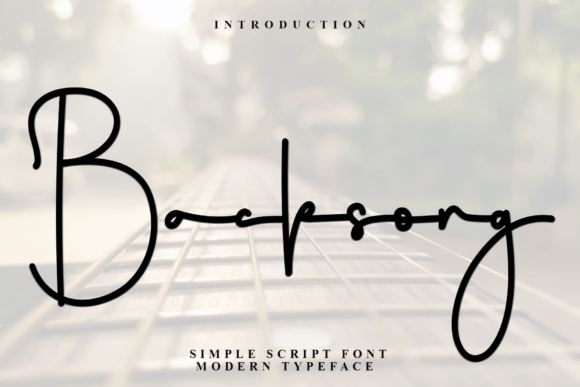
Introducing Backsong Font: The Elegant and Timeless Handwritten Font
Are you looking for a font that can add a touch of elegance and sophistication to your designs? Look no further than Backsong Font, a beautiful and flowing handwritten font that is perfect for a wide range of projects. With its incredibly distinct and timeless style, Backsong Font is sure to fall in love with anyone who lays eyes on it.
What is Backsong Font?
Backsong Font is a type of handwritten font that is characterized by its elegant and flowing script. It is designed to mimic the look and feel of traditional handwriting, with each letter and word carefully crafted to create a sense of movement and fluidity. The font is perfect for anyone who wants to add a personal touch to their designs, whether it’s for a wedding invitation, a logo, or a website.
Features of Backsong Font
So, what makes Backsong Font so special? Here are just a few of its key features:
- Elegant and sophisticated design: Backsong Font is designed to be elegant and sophisticated, making it perfect for high-end designs and projects.
- Flowing script: The font features a flowing script that is designed to mimic traditional handwriting.
- Timeless style: Backsong Font has a timeless style that will never go out of fashion.
- Distinctive look: The font has a distinctive look that will set your designs apart from the rest.
- Easy to read: Despite its elegant design, Backsong Font is easy to read and understand.
What Can I Use Backsong Font For?
Backsong Font is a versatile font that can be used for a wide range of projects, including:
- Wedding invitations: The font’s elegant design makes it perfect for wedding invitations and other formal events.
- Logos and branding: Backsong Font can be used to create unique and memorable logos and branding materials.
- Websites and blogs: The font can be used to add a touch of elegance to websites and blogs.
- Social media graphics: Backsong Font can be used to create eye-catching social media graphics.
- Print materials: The font can be used for a wide range of print materials, including brochures, flyers, and posters.
Why Choose Backsong Font?
So, why should you choose Backsong Font for your next project? Here are just a few reasons:
- Unique and distinctive: Backsong Font has a unique and distinctive look that will set your designs apart from the rest.
- Elegant and sophisticated: The font’s elegant design makes it perfect for high-end designs and projects.
- Timeless style: Backsong Font has a timeless style that will never go out of fashion.
Tips for Using Backsong Font
Here are a few tips for using Backsong Font in your designs:
- Use it sparingly: Backsong Font is a elegant and sophisticated font, so use it sparingly to add a touch of elegance to your designs.
- Pair it with other fonts: Backsong Font can be paired with other fonts to create a unique and interesting design.
- Experiment with different sizes: Experiment with different font sizes to create a visually appealing design.
- Use it for headings: Backsong Font is perfect for headings and titles, so use it to add a touch of elegance to your designs.
In conclusion, Backsong Font is a beautiful and elegant handwritten font that is perfect for a wide range of projects. With its flowing script and timeless style, it’s sure to add a touch of sophistication to any design. Whether you’re looking for a font for a wedding invitation, a logo, or a website, Backsong Font is a great choice.
- What is Backsong Font?: Backsong Font is a type of handwritten font that is characterized by its elegant and flowing script.